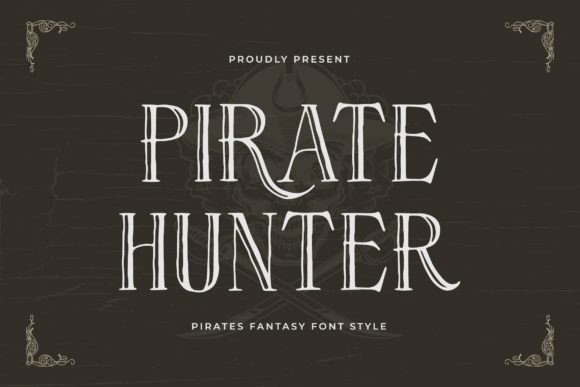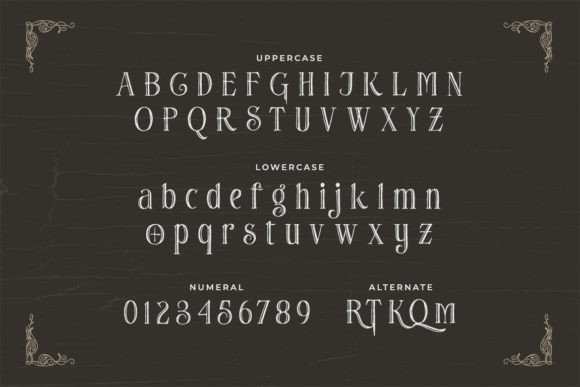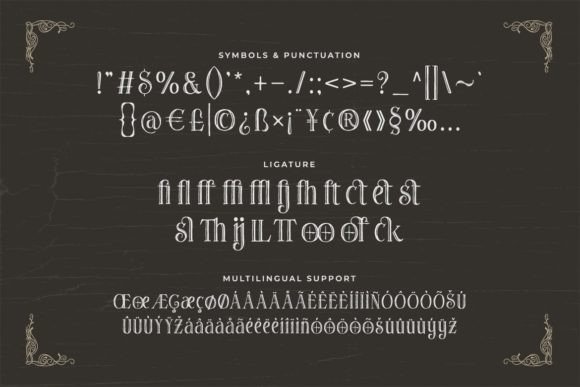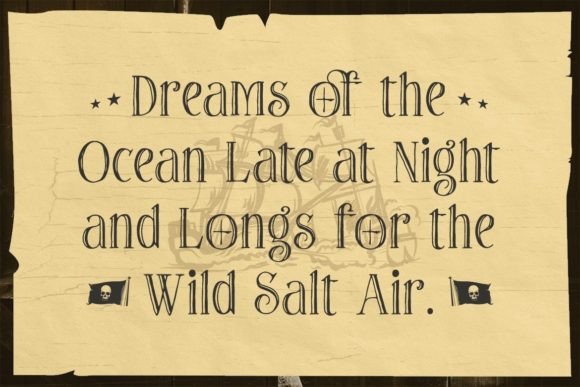
Pirate Hunter Font: A Bold Title Font for Fantasy & Adventure Designs
About the Pirate Hunter Font
The wait is over! The incredible Pirate Hunter Font is now available for your design toolkit. Pirate Hunter is a pirate fantasy font that will immediately take you into adventure vibes.
This font will be the ideal choice for any movie, game, and pirate-themed design you wish to develop
Pirate Hunter’s bold, swashy style is ideal for headlines, posters, and branding projects requiring a strong, adventurous feel. It excels in short, impactful text, creating a sense of drama and excitement. However, its highly decorative nature makes it unsuitable for body copy or UI elements where readability is paramount.
Consider pairing Pirate Hunter with a clean sans-serif like Open Sans for body text to provide contrast and improve legibility. For a more cohesive, adventurous feel, a complementary serif such as Playfair Display could enhance the overall design’s sophistication. Avoid pairing it with other highly decorative fonts, which would create visual clutter.
The font’s core personality is rebellious and dramatic, reflecting a sense of swashbuckling energy. It’s best suited for brands and projects focused on adventure, fantasy, gaming, or entertainment with a similarly bold aesthetic.
Pirate Hunter Font Usage Examples
Pirate Hunter Font Example